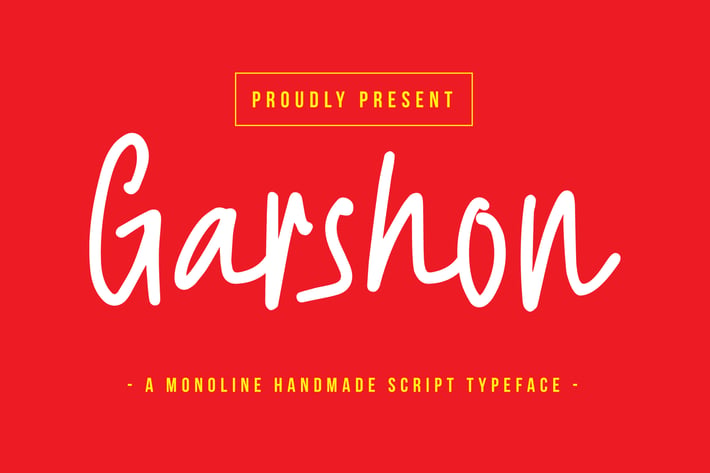
Garshon - A Monoline Handmade Script Typeface
So beautiful on invitation like greeting cards, branding materials, business cards, quotes, posters, and more!